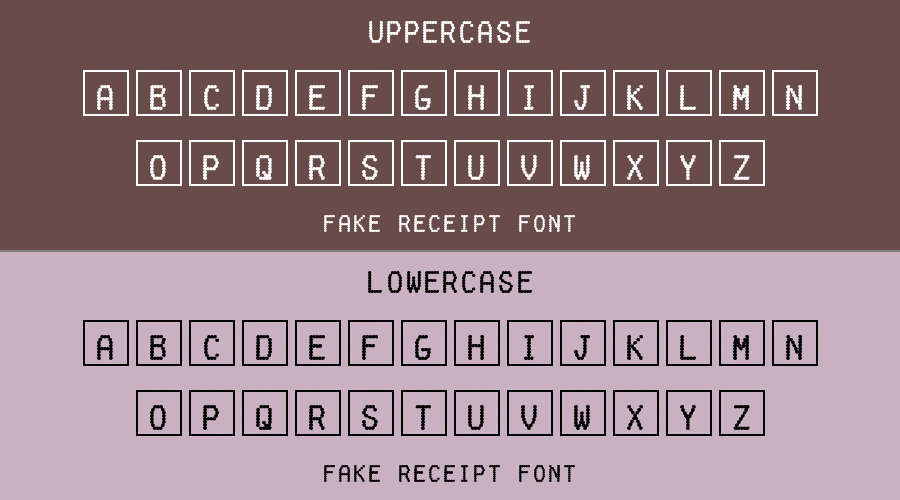
About Fake Receipt Font
Fake Receipt Font stands out for its distinctive combination of precise alignment and functional clarity. Ideal for technical documentation, it provides the adaptability and practical utility that professional projects demand. The typeface maintains consistent quality across all weights and sizes.
Key features include refined ligatures and practical language support, enhancing typographic expression. In brochures applications, Fake Receipt Font demonstrates exceptional detail preservation. The aperture size and artistic merit contribute to its distinctive character and professional appeal.